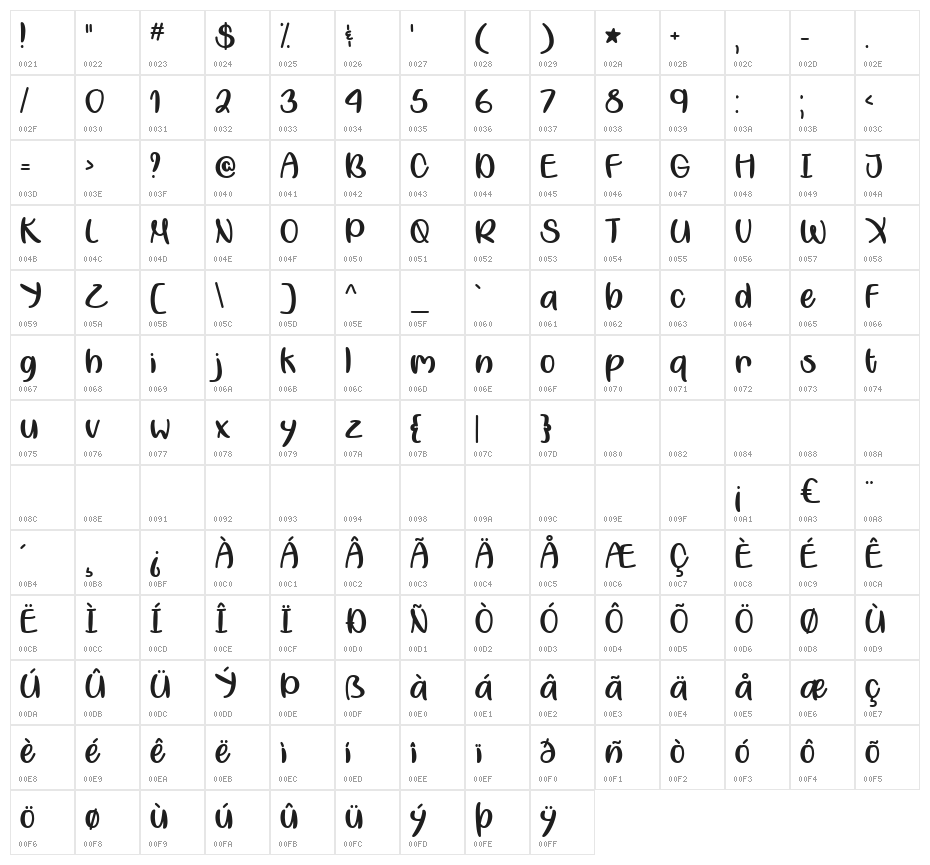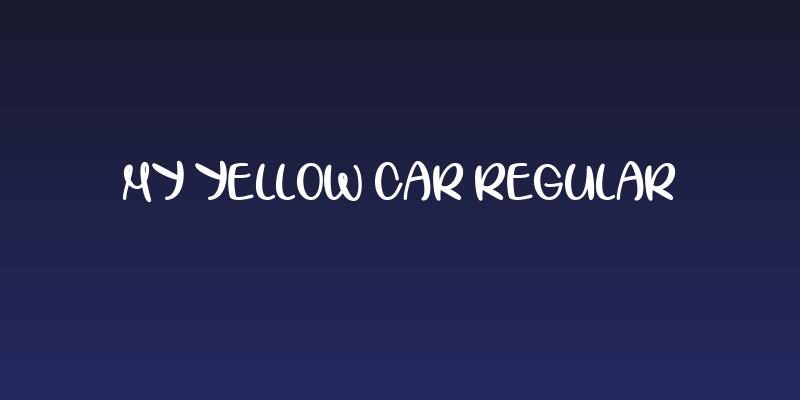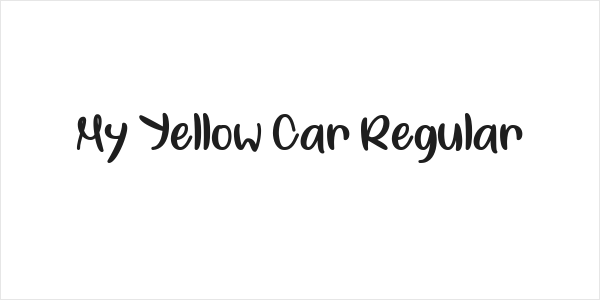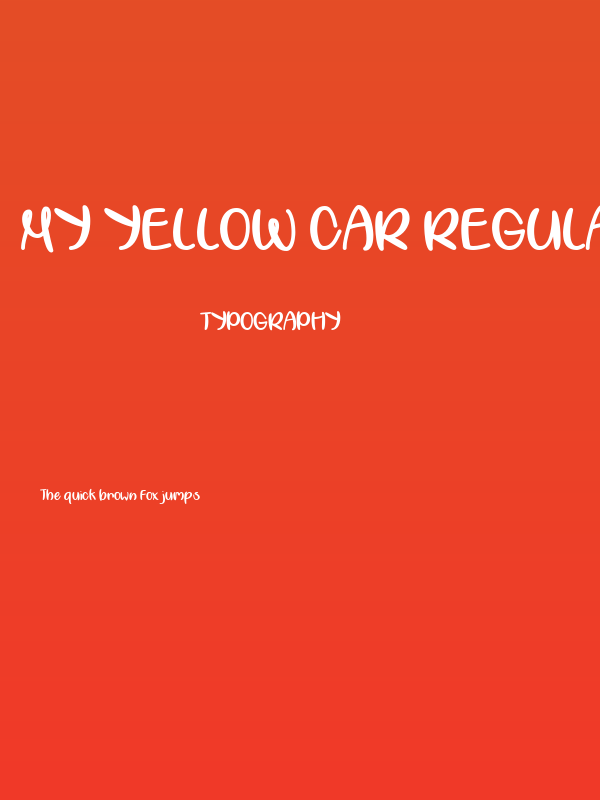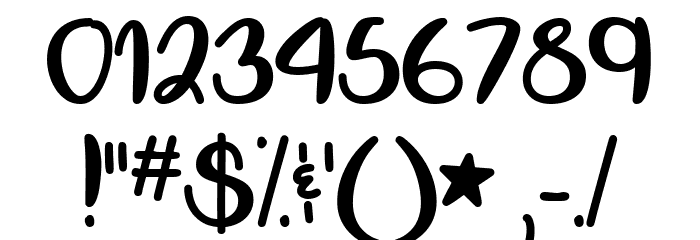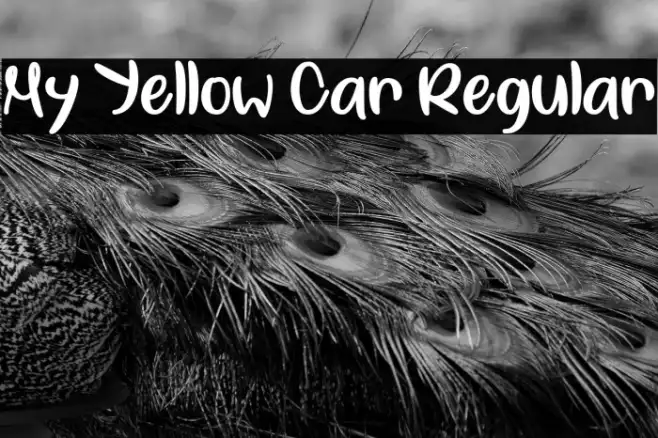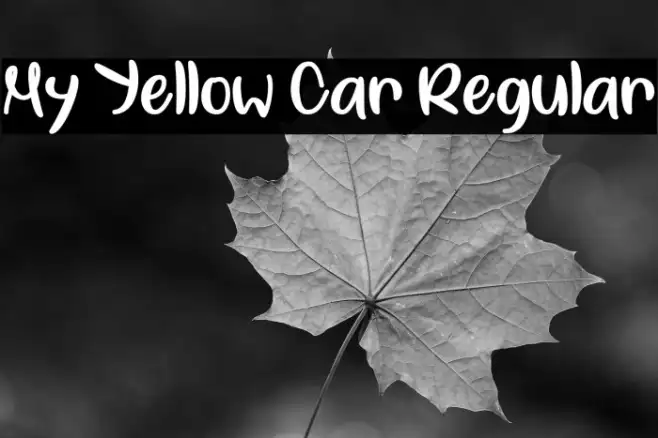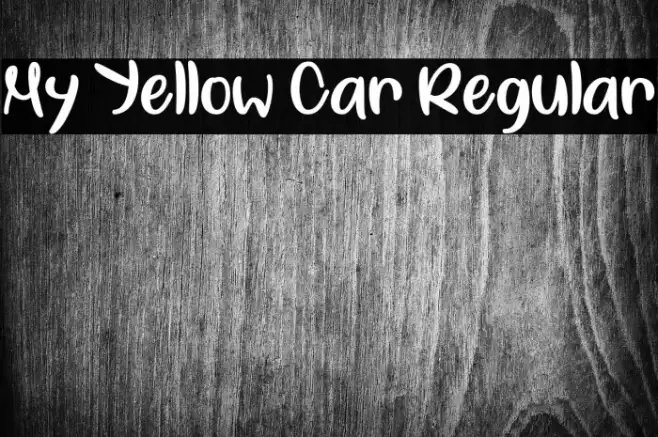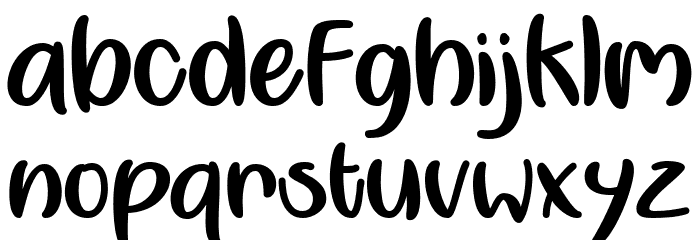
My Yellow Car Regular Font
This playful and energetic font features a handwritten style with a bold and rounded appearance. The characters are slightly slanted, giving a casual and friendly vibe. The uppercase letters are distinct with a whimsical touch, while the lowercase letters maintain a consistent flow. Numbers are bold and easily readable, and the special characters add a fun element to the overall design. The font's thick strokes and smooth curves make it suitable for projects that require a lively and approachable aesthetic.
| Proposed Projects | Ideal for children's books, playful branding, greeting cards, and social media graphics. |